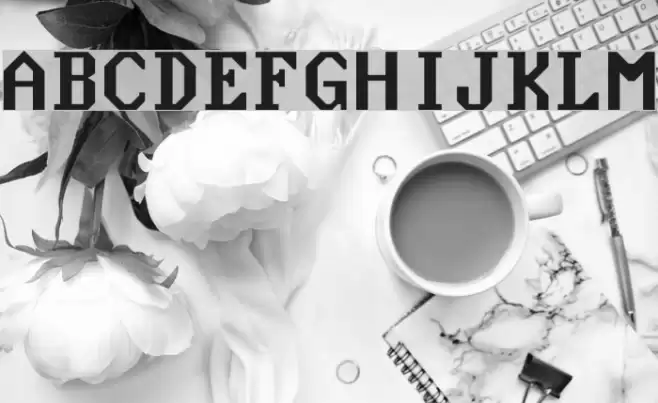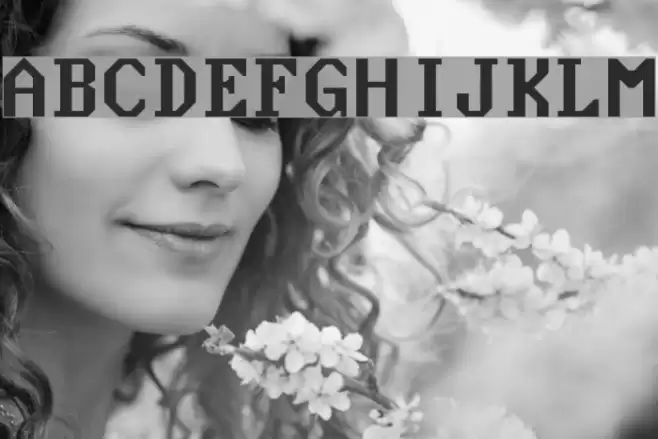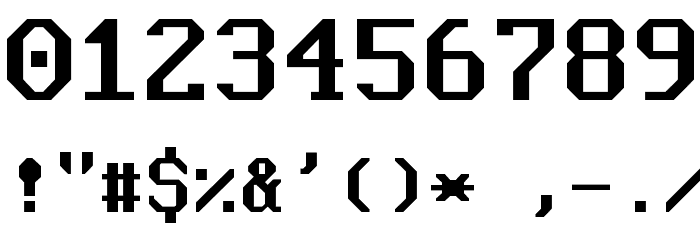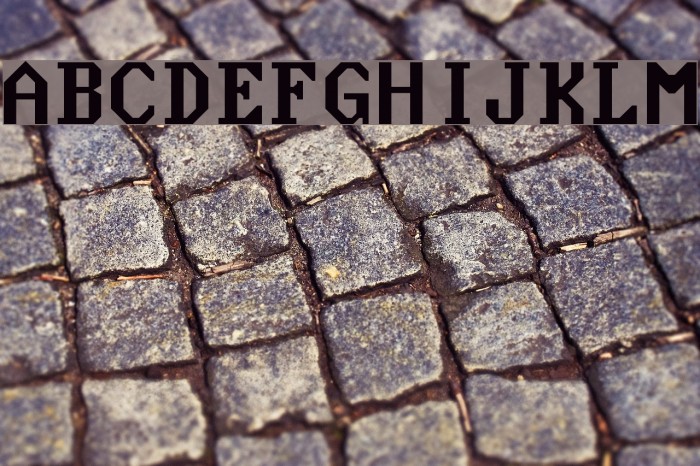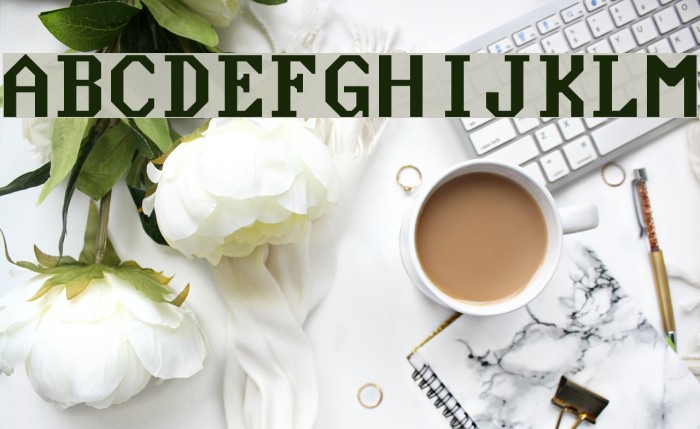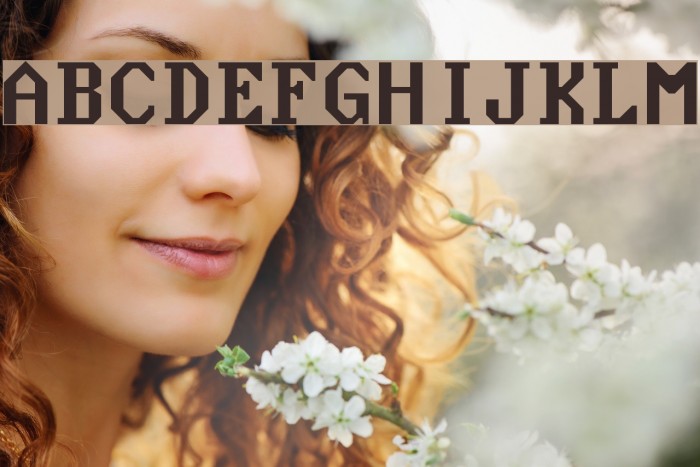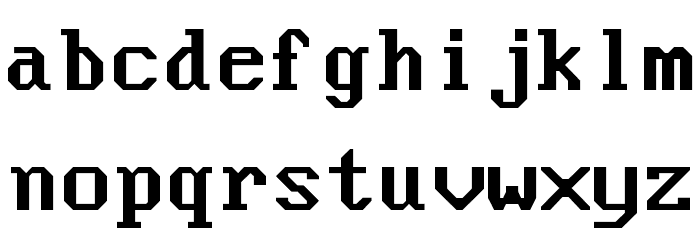
Nouveau IBM Font
Nouveau IBM Description
This font features a bold, geometric style with a distinctively modern and industrial feel. The characters are designed with sharp angles and straight lines, giving them a structured and mechanical appearance. The uppercase letters are particularly striking, with a uniform height and width that create a cohesive look. The lowercase letters maintain the same angular design, ensuring consistency throughout the typeface. Numbers and special characters are crafted with the same attention to detail, making them easily readable while maintaining the overall aesthetic. The font's boldness and unique style make it suitable for projects that require a strong visual impact.
A bold, geometric font with a modern, industrial style from Uncategorized fonts.
- Proposed Projects: Ideal for branding, posters, and headlines that require a strong, modern aesthetic.